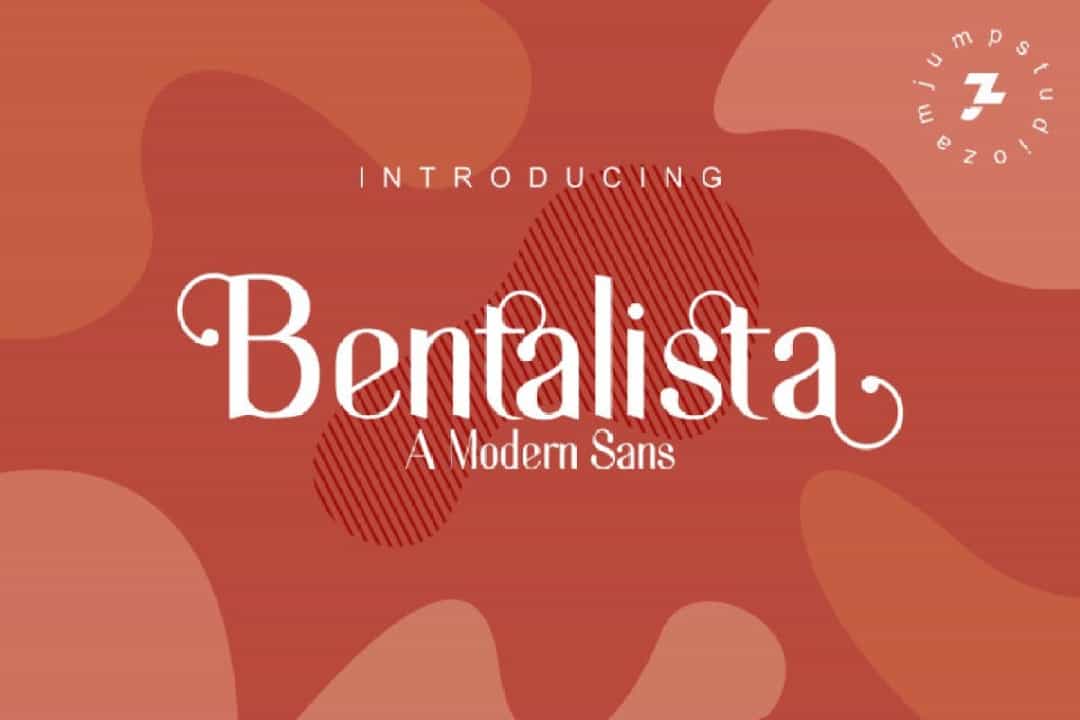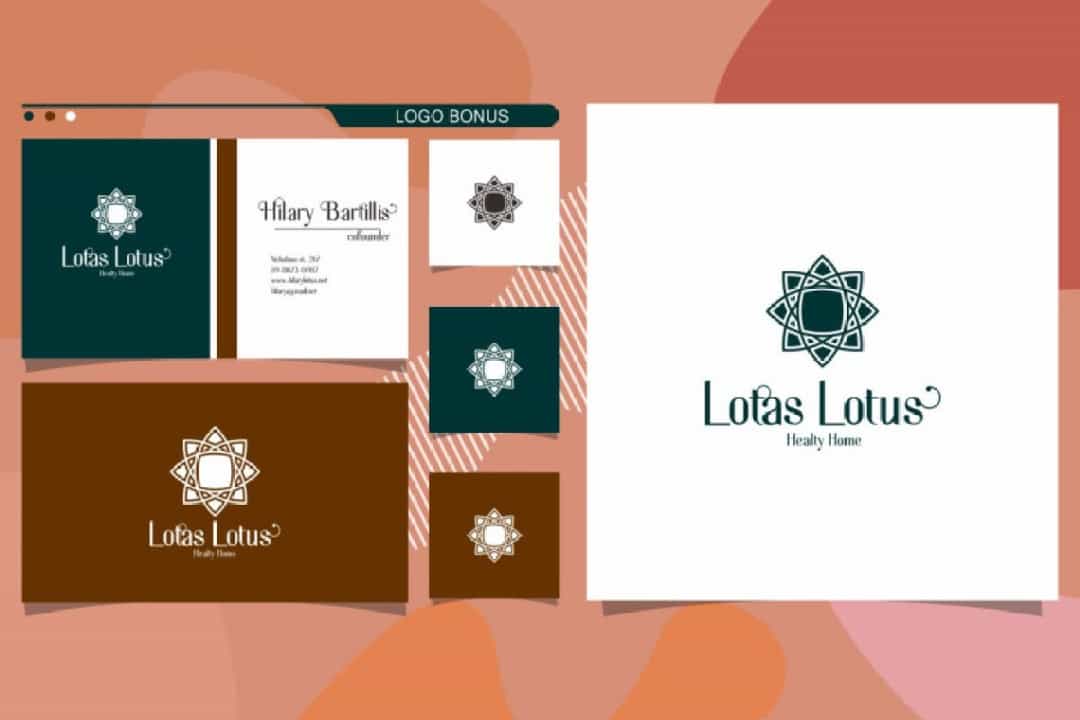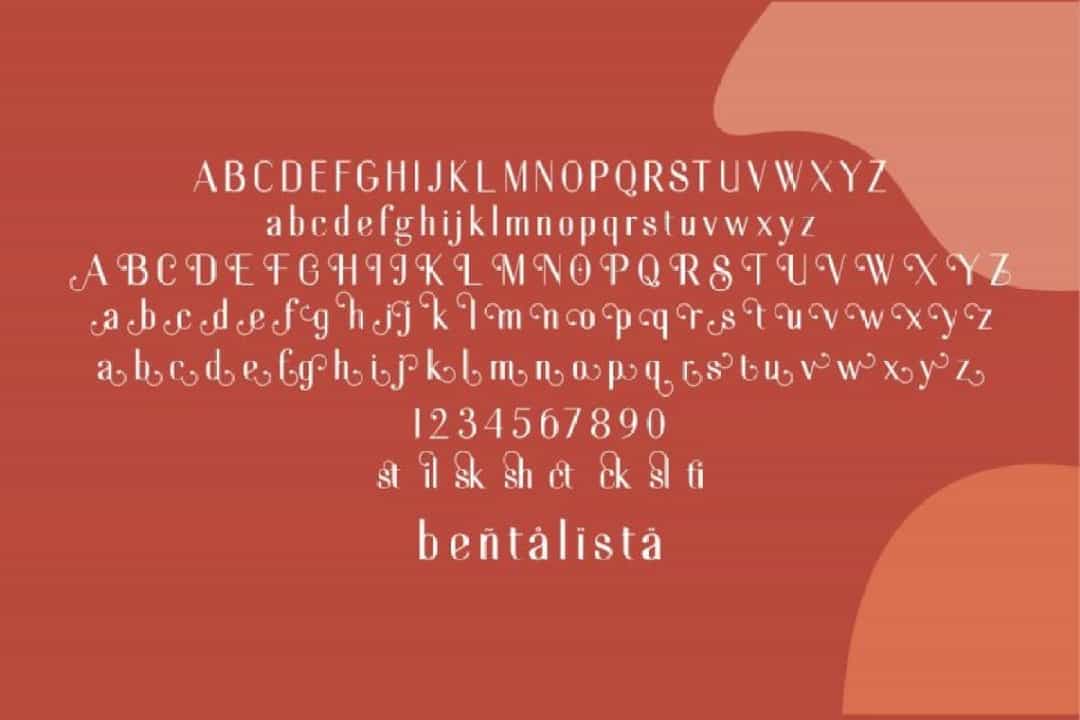
Bentalista is a fresh sans serif typeface with a large set of stylistic variants, a wide range of symbols, and outstanding ligatures. Bentalista is very versatile; can be used to come up with simple labels, logos, packages and designs for packaging as well as texts for T-Shirts Hoodies and so on.